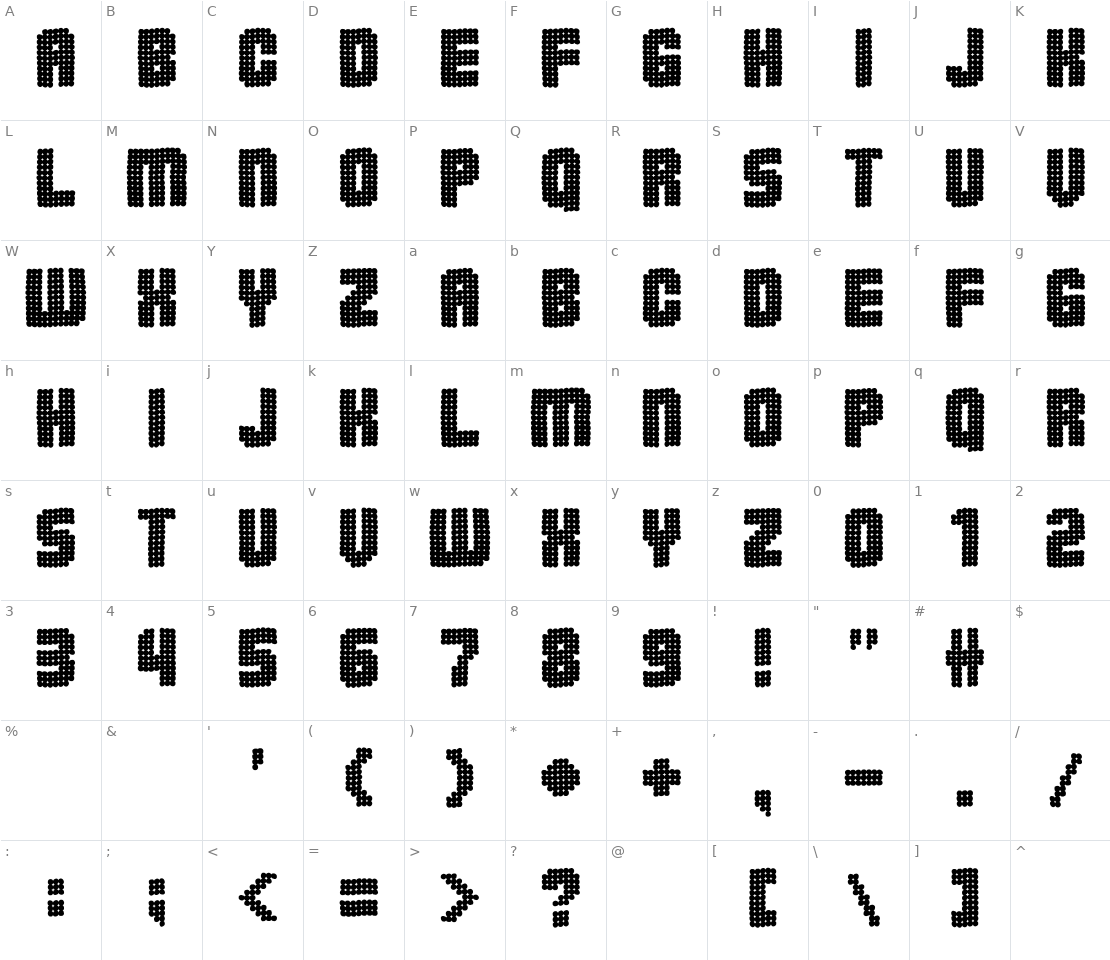
Pointer Sisters
Pointer Sisters is a bold, uppercase bitmap face from Manfred Klein where each letterform is built from a grid of chunky dots, giving it a halftone-meets-pixel aesthetic. The blocky construction and visible grid pattern recall early digital printing and LED signage, sitting comfortably between retro computing and pop-art poster design. Best at large sizes for headlines and display use, where the dotted texture reads as a deliberate stylistic choice rather than low resolution.